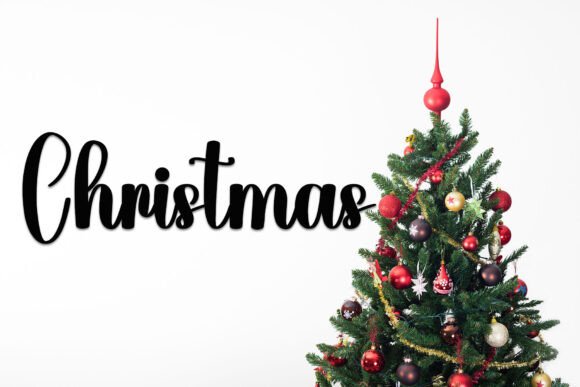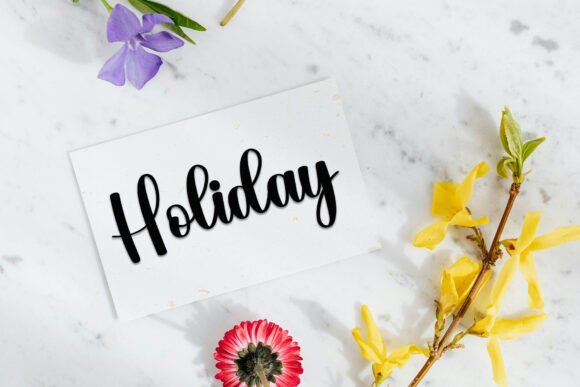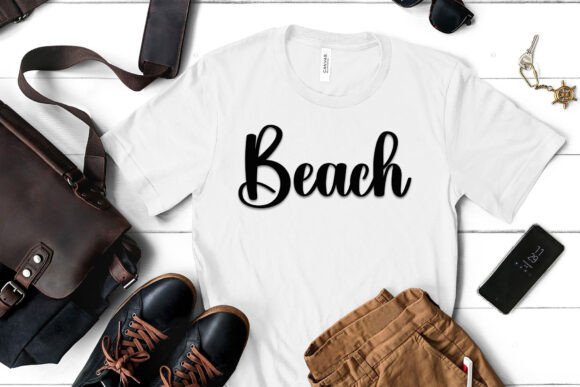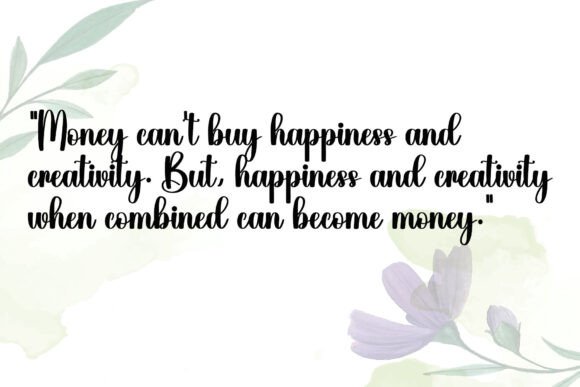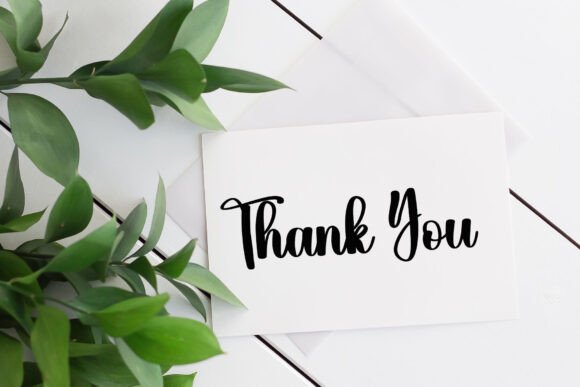
Meet Your New Design BFF: Auntie Font
You know that moment when you’re brainstorming ideas for a project, and the perfect font just pops into your head? For designers, that ‘aha’ moment is often the key to unlocking a truly stunning visual identity. And for those who’ve been searching for the perfect handwritten font, the wait is finally over.
Introducing Auntie Font, a trendy handwritten font that exudes a contemporary atmosphere and impeccable form, inspired by timeless classic calligraphy. Whether you’re designing a wedding invitation, a brand logo, or a social media campaign, Auntie Font is sure to add a touch of elegance and class to your work.
What makes Auntie Font truly valuable is its versatility – it’s perfect for projects that require a personal, yet polished touch. And with its effortless flow and sophistication, it’s no wonder designers are falling in love with this beautiful font.
Auntie Font Key Features
- Unique Characteristics: Auntie Font features a distinctive, playful design with rounded edges and a friendly feel.
- Font Weight: Auntie Font is available in regular and bold weights, providing flexibility for different design applications.
Auntie Font Review
Auntie Font is a charming, vintage-inspired font that exudes warmth and character. I appreciate the effort that has gone into creating a unique, hand-drawn feel that sets it apart from more generic sans-serif fonts.
- ✨ Unique character set: Auntie Font’s eccentricities are part of its charm, and the font’s creator has done a great job of curating a distinctive set of characters that work well together.
- ✨ Versatile: While Auntie Font is certainly suitable for vintage or retro-themed projects, its warm, inviting feel also makes it a great choice for more modern designs where a touch of personality is needed.
- ✨ Highly customizable: The font’s creator has provided a range of OpenType features and options for customizing the font’s behavior, which makes it a joy to work with.
However, there are a few areas where Auntie Font falls short.
- ⚠️ Limited language support: Unfortunately, Auntie Font only includes support for a limited number of languages, which may be a problem for designers working on multilingual projects.
- ⚠️ Some character limitations: While the font’s creator has done a great job of curating a unique set of characters, there are a few instances where the font falls back to more generic substitutes, which can be jarring.
Overall, I think Auntie Font is a great choice for designers looking to add a touch of personality to their projects. While it has some limitations, its unique character set and high level of customization make it a joy to work with.
Auntie Font is ideal for creating playful, cursive text for social media graphics, invitations, and wedding stationery. To get the most out of it, try experimenting with different font sizes, colors, and combinations.
- Social media graphics and posts
- Choose a background image of a vintage tea setting to complement the font.
- Select a few key dishes to feature on the menu, and use Auntie Font to write their names and descriptions.
- Add some decorative elements like tea cups, flowers, or lace to give the menu a whimsical feel.
- Use Auntie Font to write the recipient’s name or a special message on the gift tag.
- Choose a background color or pattern that complements the font, such as a soft pastel or a subtle polka dot.